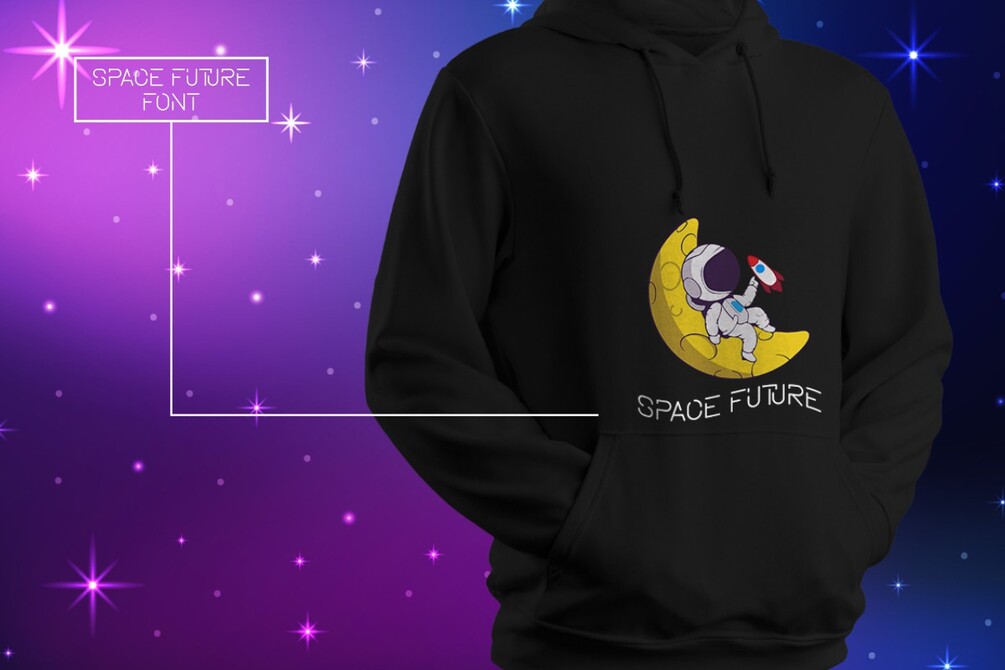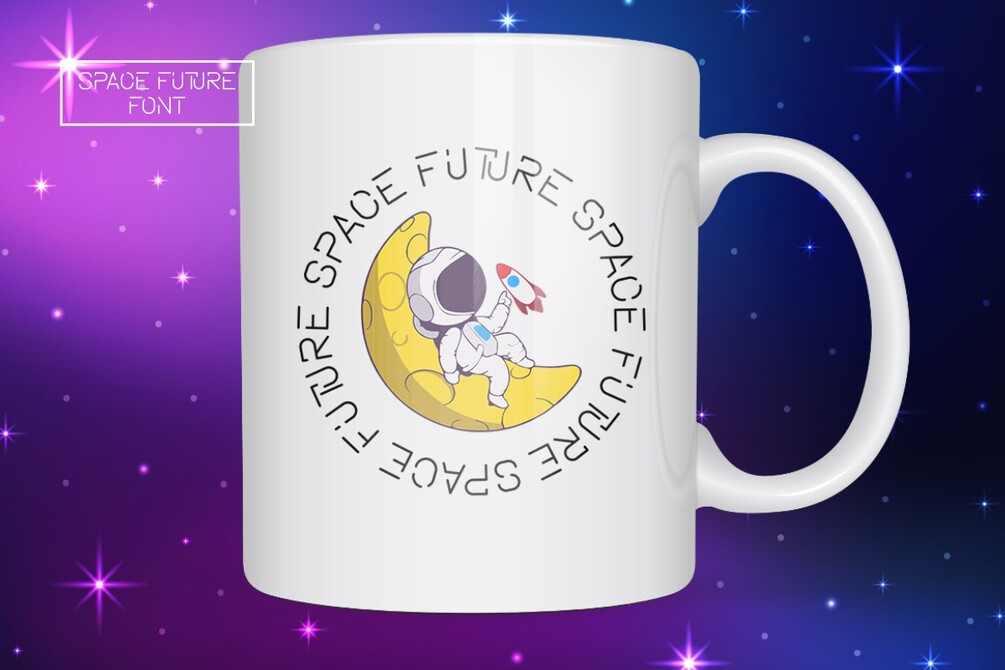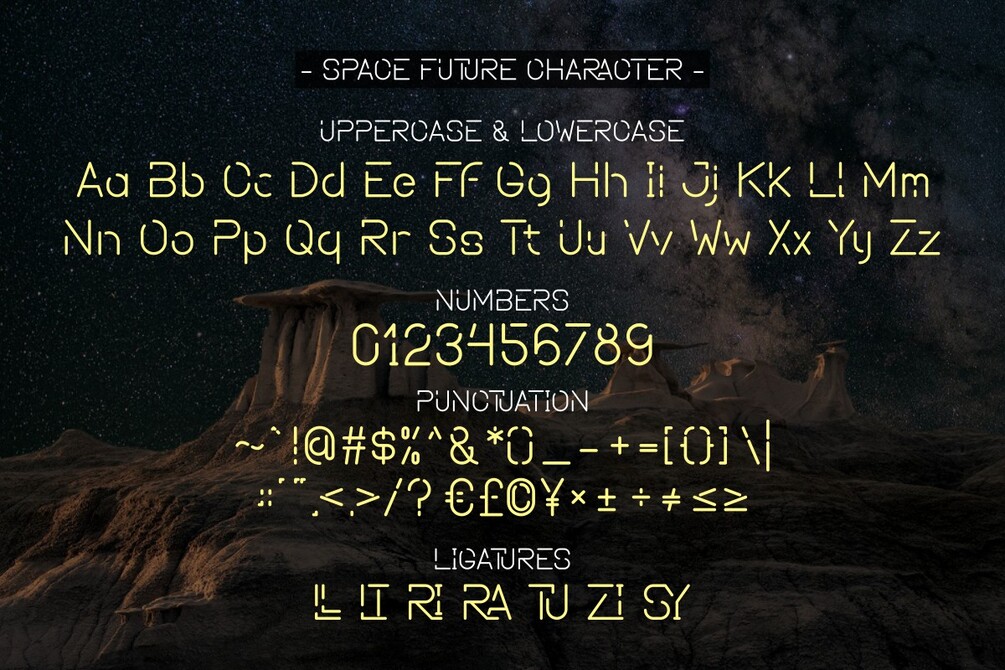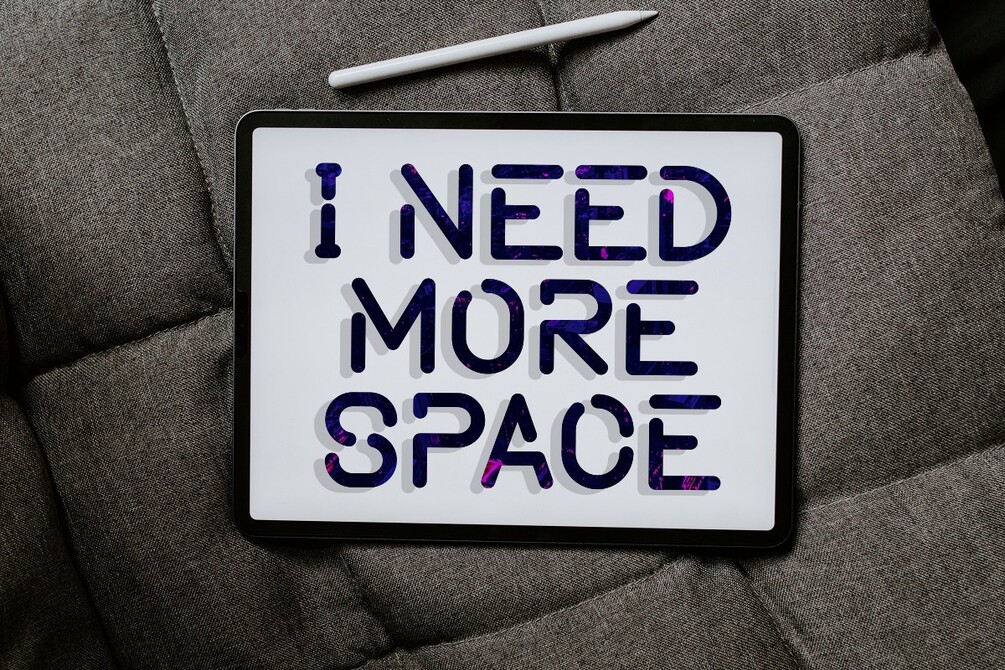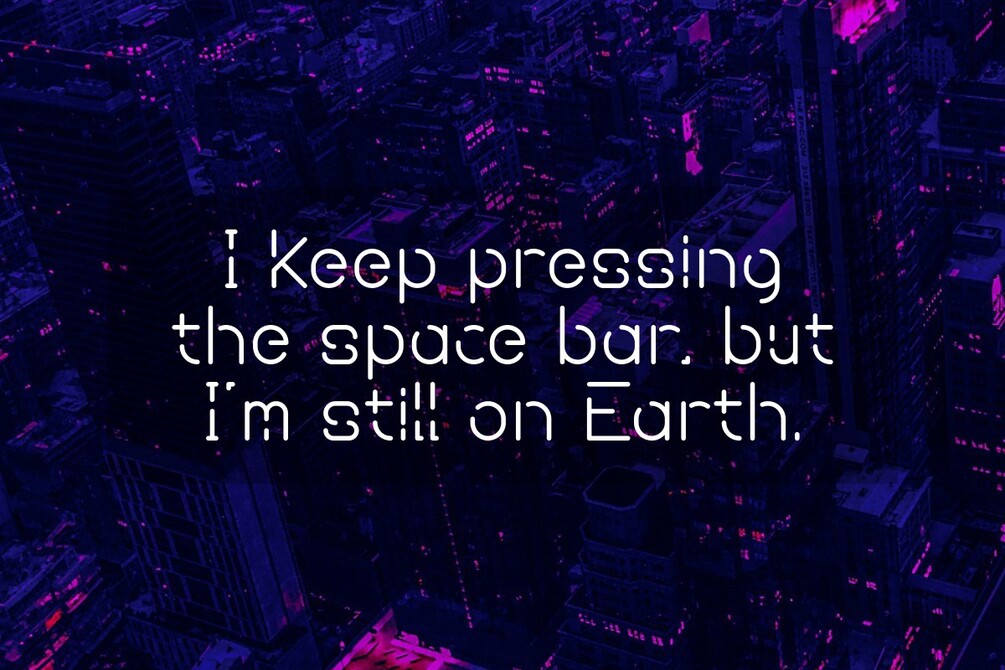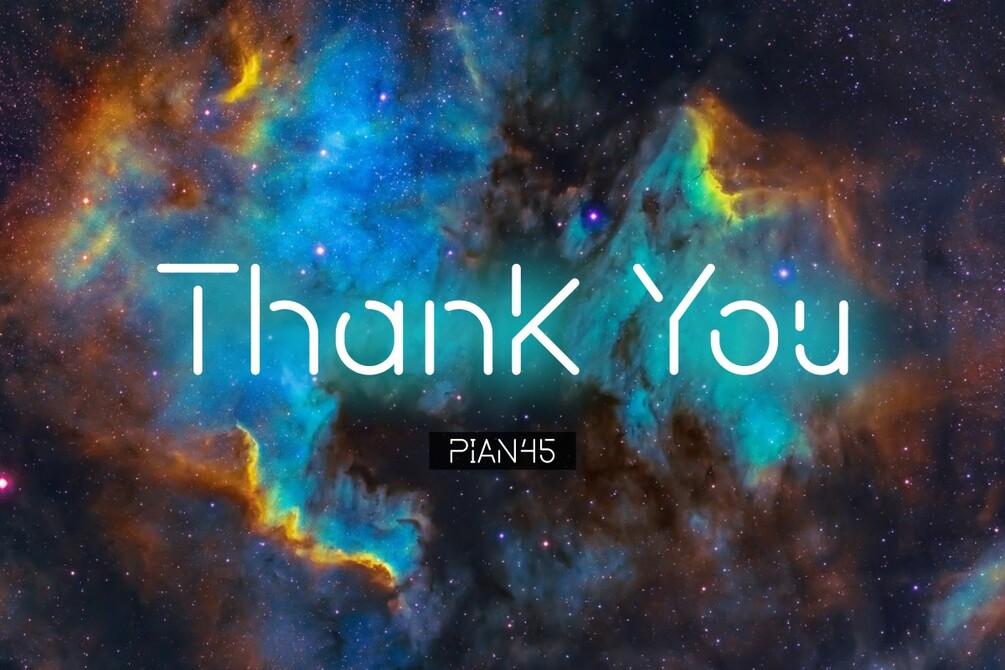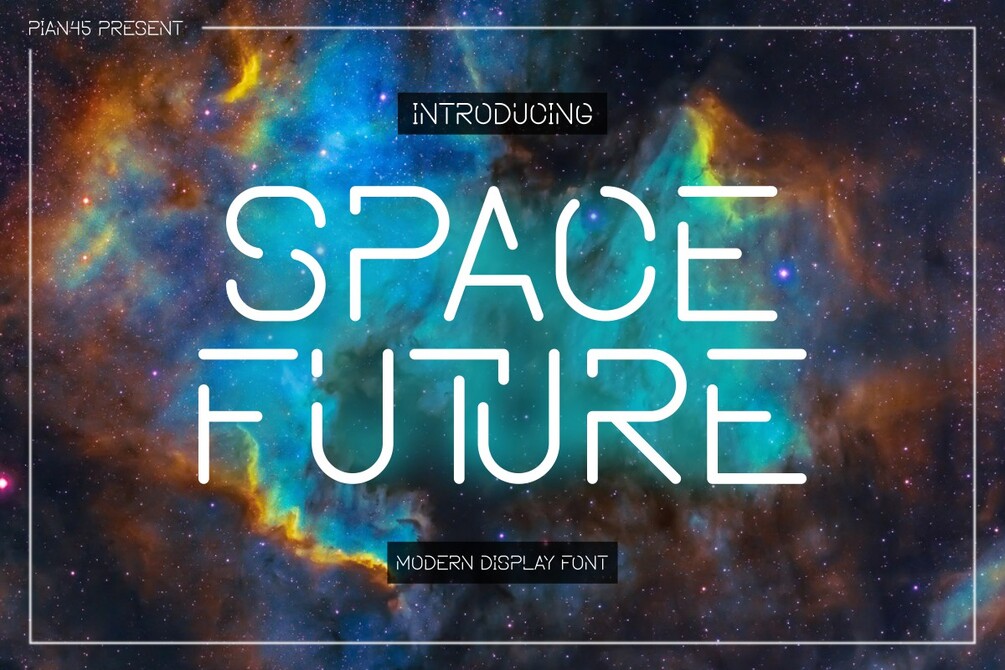
Space Future - Modern Display Font
"Space Future" font is the epitome of cutting-edge design, combining a futuristic aesthetic with elements inspired by the vastness and mysteries of outer space. This captivating font is designed to evoke a sense of wonder and exploration, making it perfect for selling products or services related to advanced technology, space exploration, sci-fi themes, or anything that embraces the spirit of the future.
- Uppercase and Lowercase letters
- Numbering, Punctuations and Ligatures